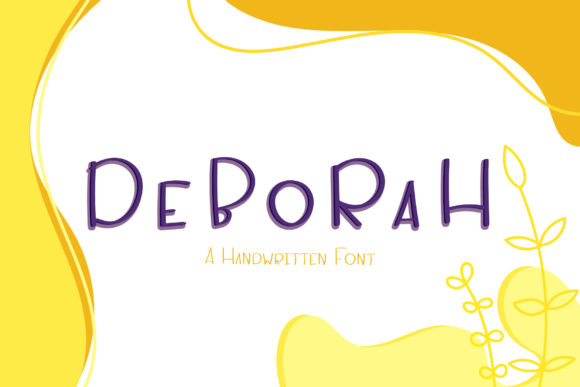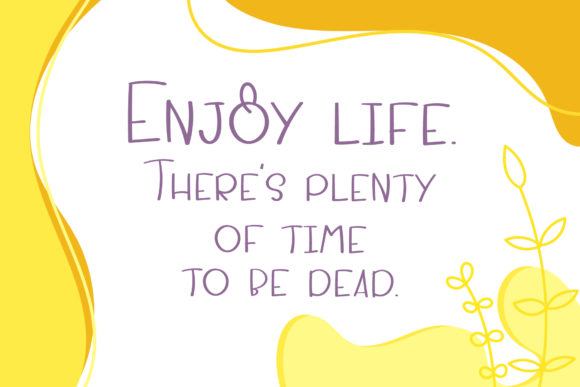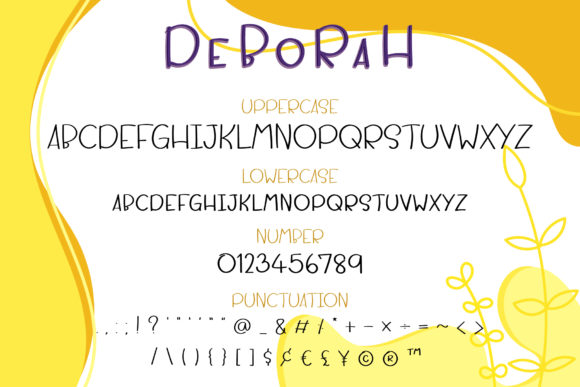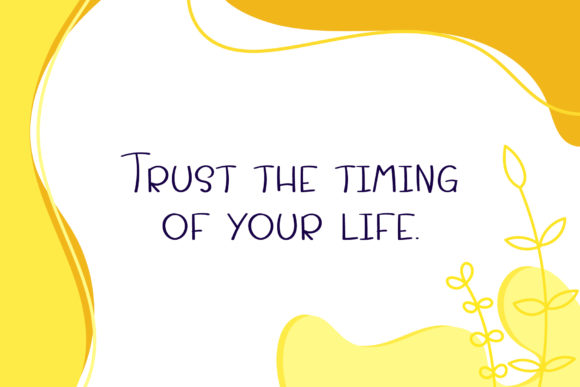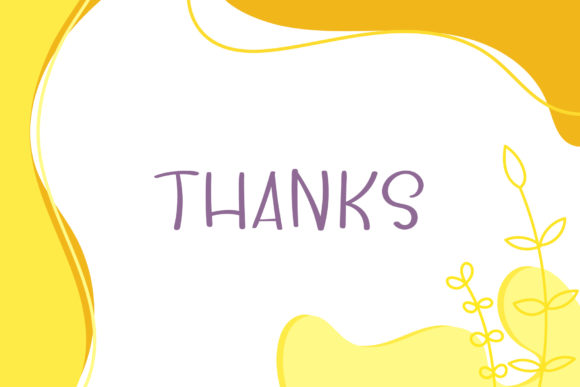
Deborah Font
About Deborah Font
Deborah is a cute and casual handwritten font with an incredibly friendly feel. Whether you’re looking for fonts for Instagram or calligraphy scripts for DIY projects, this font will turn any creative idea into a true piece of art!